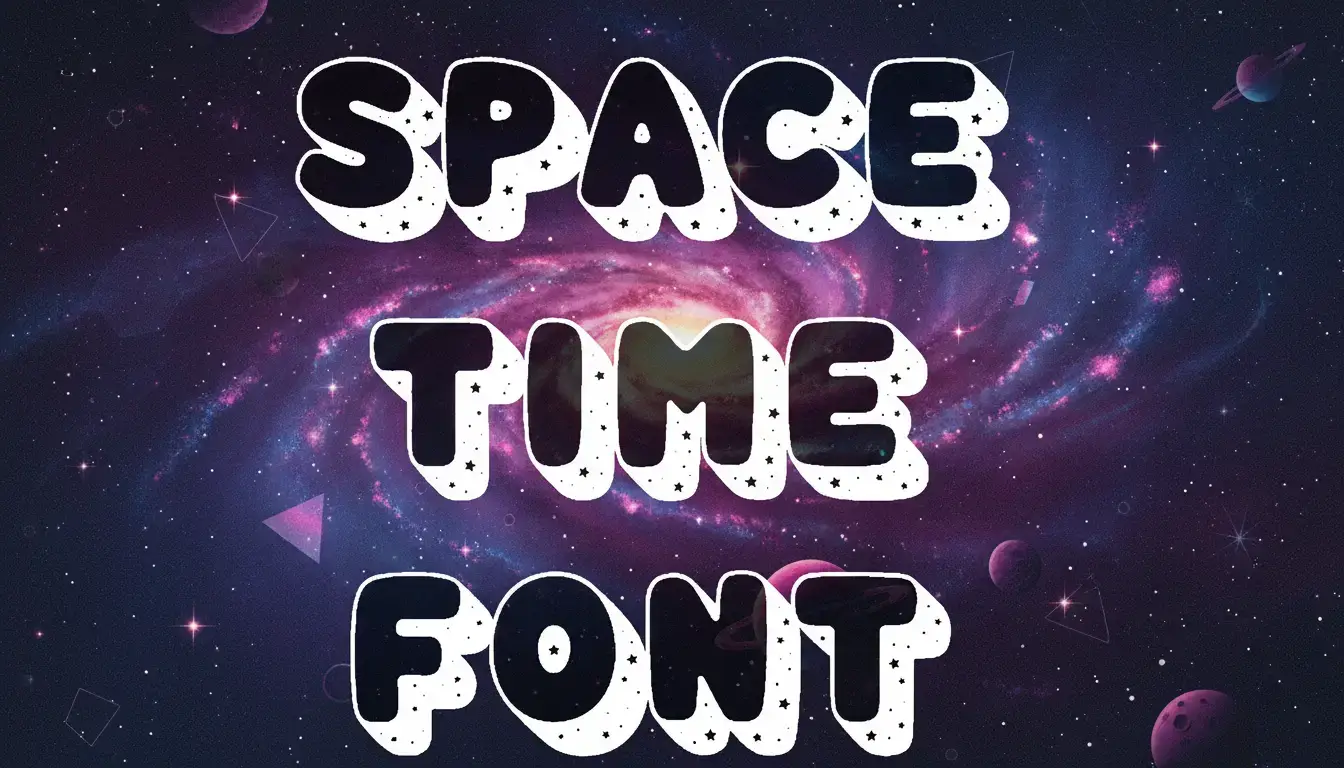
Space Time Font
Space Time
Space Time is a fancy font designed by Lauren Ashpole. Bold and full of character, it's built to stand out rather than blend in. You can download it for free and test it with your own words in the preview above.
What You Can Type With Space Time
Space Time covers the full alphabet in upper and lowercase, plus all ten numbers, so you can set names, dates and prices without switching fonts. Everyday marks like &, !, ? and @ are there too. There are no accented letters like é or ñ, so it's best kept to English text.
Where Space Time Works Best
Designers usually reach for fonts like Space Time when they're making posters, logos and eye-catching headlines. Use it for one standout word or headline and let simpler fonts handle the rest.
Does Space Time support accented letters?
No. Space Time has no accented letters such as é, ñ or ü, so it's best for English text.